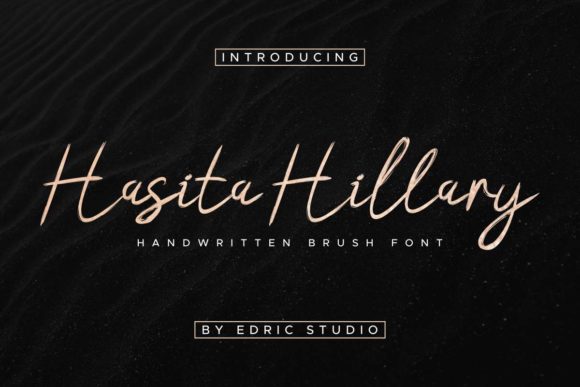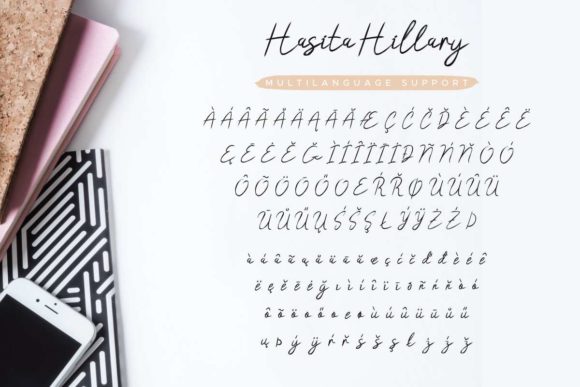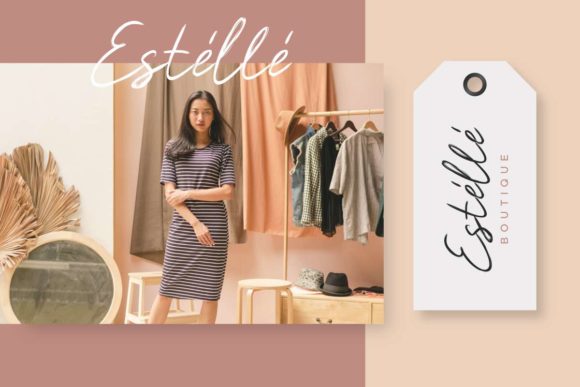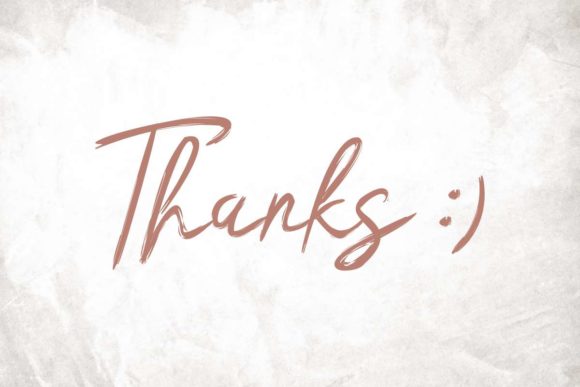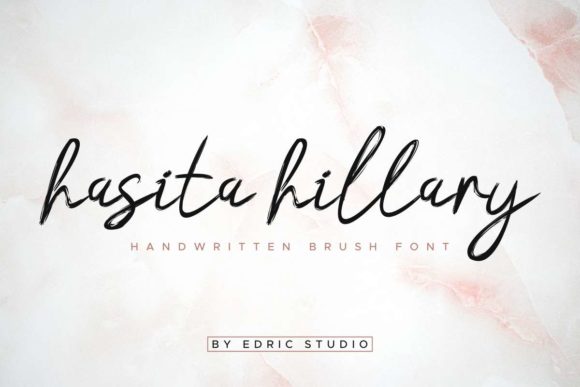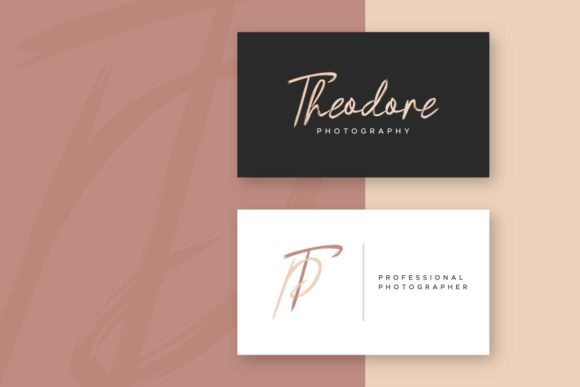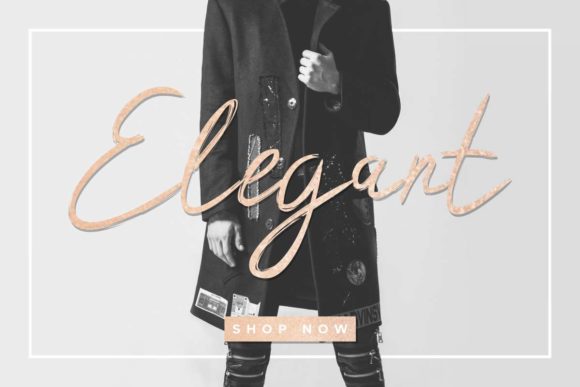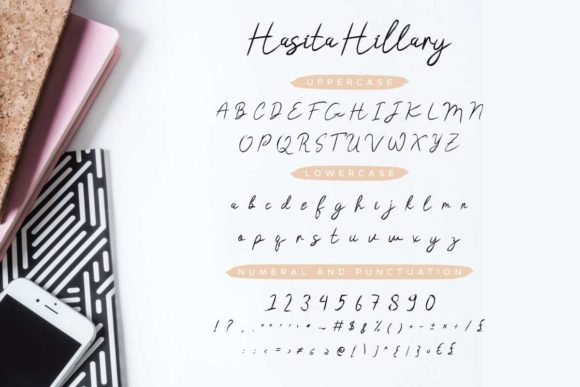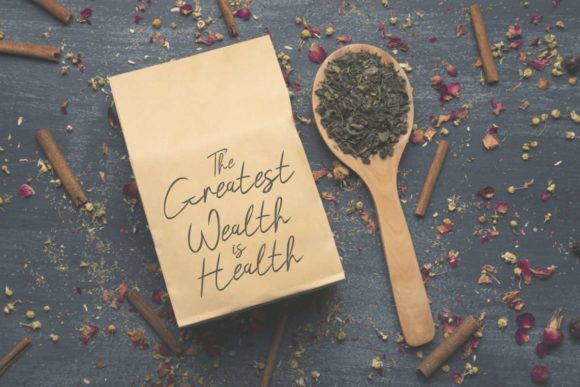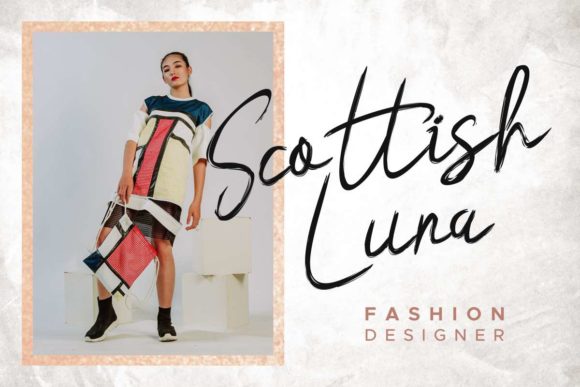
Hasita Hillary Font
About Hasita Hillary Font
Hasita Hillary results out of a stunning pairing of a brush pen and pencil that makes it look incredibly endearing and authentic. Use this gorgeous and unique handwritten to bring any DIY project to life